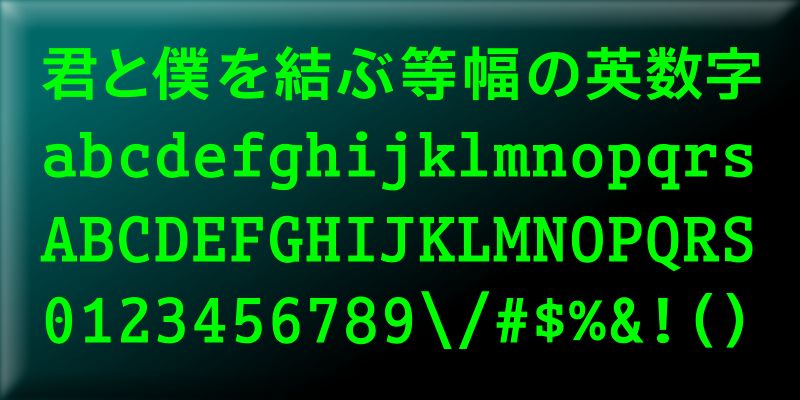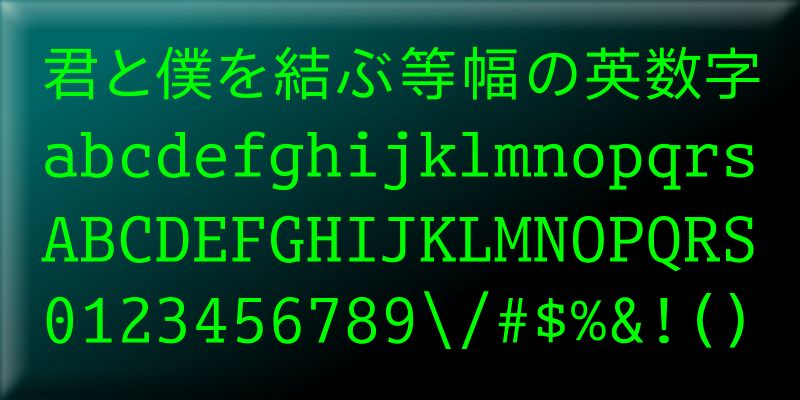
MonopinJ-Regular is a Japanese font meant to be used for displaying source code in computer programming.
– For the ASCII seven-bit character code for the Yen currency symbol (‘¥’), the backslash character (‘\’) is displayed instead.
– For characters in the ASCII seven-bit code range, TYPE-LABO’s original Latin font, MonopinJ Regular is used.
– The width of each character in the ASCII seven-bit code range is set to 63% of the width of a Japanese character (not 50%).
– For the MonopinJ Regular’s Japanese characters, TYPE-LABO’s original typeface, Ruika 03 is used.
MonopinJ-Bold is a Japanese font meant to be used for displaying source code in computer programming.
– For the ASCII seven-bit character code for the Yen currency symbol (‘¥’), the backslash character (‘\’) is displayed instead.
– For characters in the ASCII seven-bit code range, TYPE-LABO’s original Latin font, MonopinJ Regular is used.
– The width of each character in the ASCII seven-bit code range is set to 63% of the width of a Japanese character (not 50%).
– For the MonopinJ Bold’s Japanese characters, TYPE-LABO’s original typeface, Ruika 05 is used.